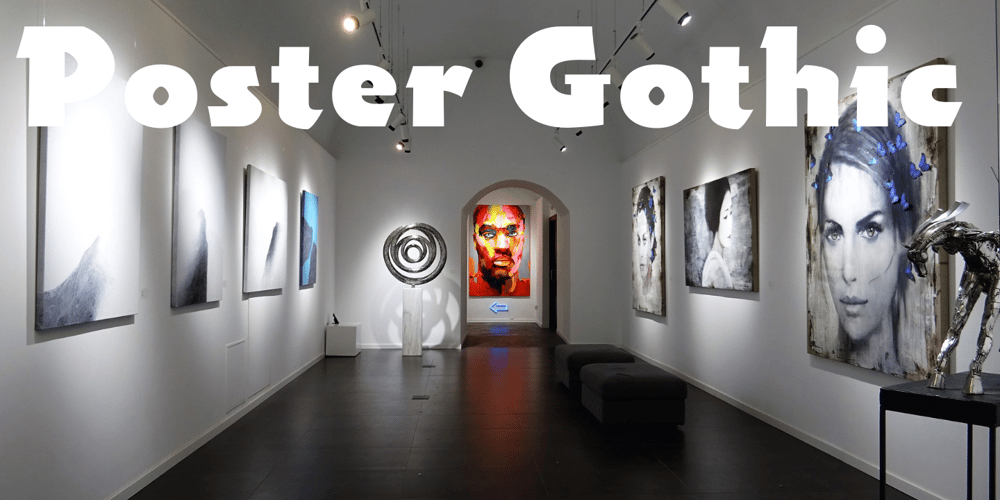
Poster Gothic Font Family was designed by James Eisenberg and published by GroupType. Poster Gothic contains 1 styles and family package options. Poster Gothic was inspired by showcard lettering samples featured in the book,””Commercial Art of Show Card Lettering”” by James Eisenberg, published by D. Van Nostrand Company in 1945.